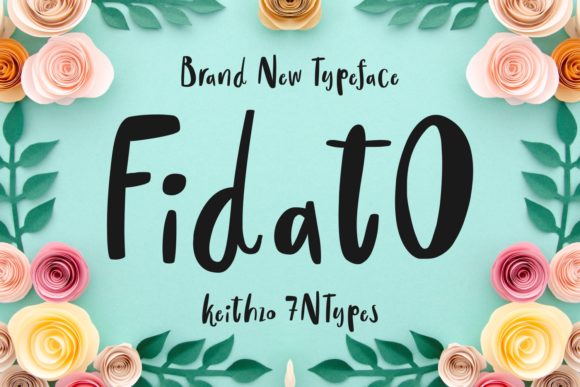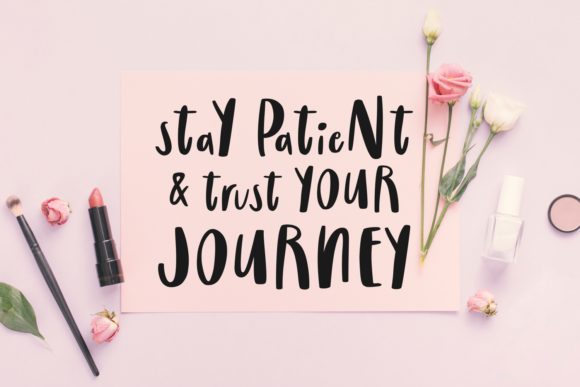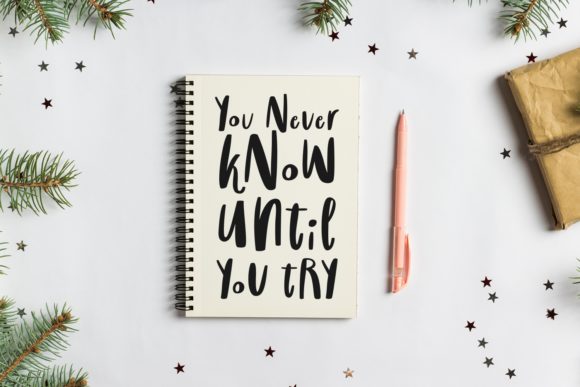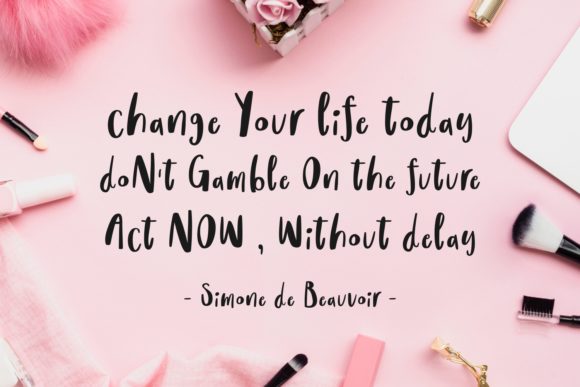
HomeScript FontsFidato Font Script Fonts Fidato Font FacebookXPinterestWhatsApp Fidato Font Poster 2 Fidato Font Poster 3 Fidato Font Poster 4 About Fidato Font Fidato is a cool and bold script font with a unique style. It will add a playful vibe to any craft. DOWNLOAD NOW People also explored Straight Ahead Font Hogituey Font Magic Mermaid Font Meity Font Lavender Font Welcome Font Centie Font Sarimin Monogram Font The Moon Font 334 0 TagsFidato Font Previous articleIndependent FontNext articleHawkins Font LEAVE A REPLY Cancel reply Comment: Please enter your comment! Name:* Please enter your name here Email:* You have entered an incorrect email address! Please enter your email address here Website: Save my name, email, and website in this browser for the next time I comment. Personal Use Free Archipellago Personal Use Free Read more about this font Anders Personal Use Free Read more about this font Shkoder 1989 Personal Use Free Read more about this font Rumaniaya Personal Use Free Read more about this font BLOG 5 Fonts That Will Dominate Design Trends in 2026 5 Fonts for 2026 That Will Dominate Design Trends Typography plays a critical role in visual communication, and as we look ahead to 2026, it’s... Transform Your Website: Elevate Your Typography with 7 Best Web Font Generators Fonts That Capture the Spirit of New York City Top 7 Google Fonts Alternatives for Faster and Privacy-Friendly Web Design (2025)